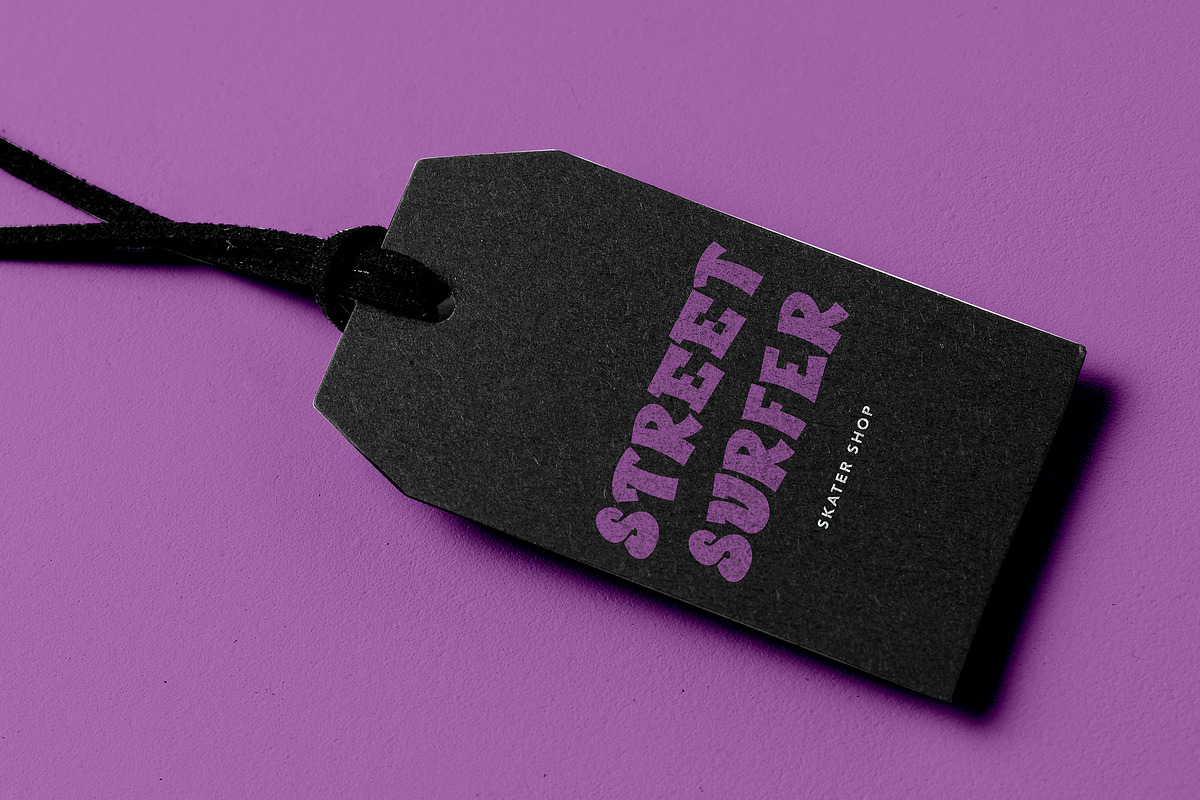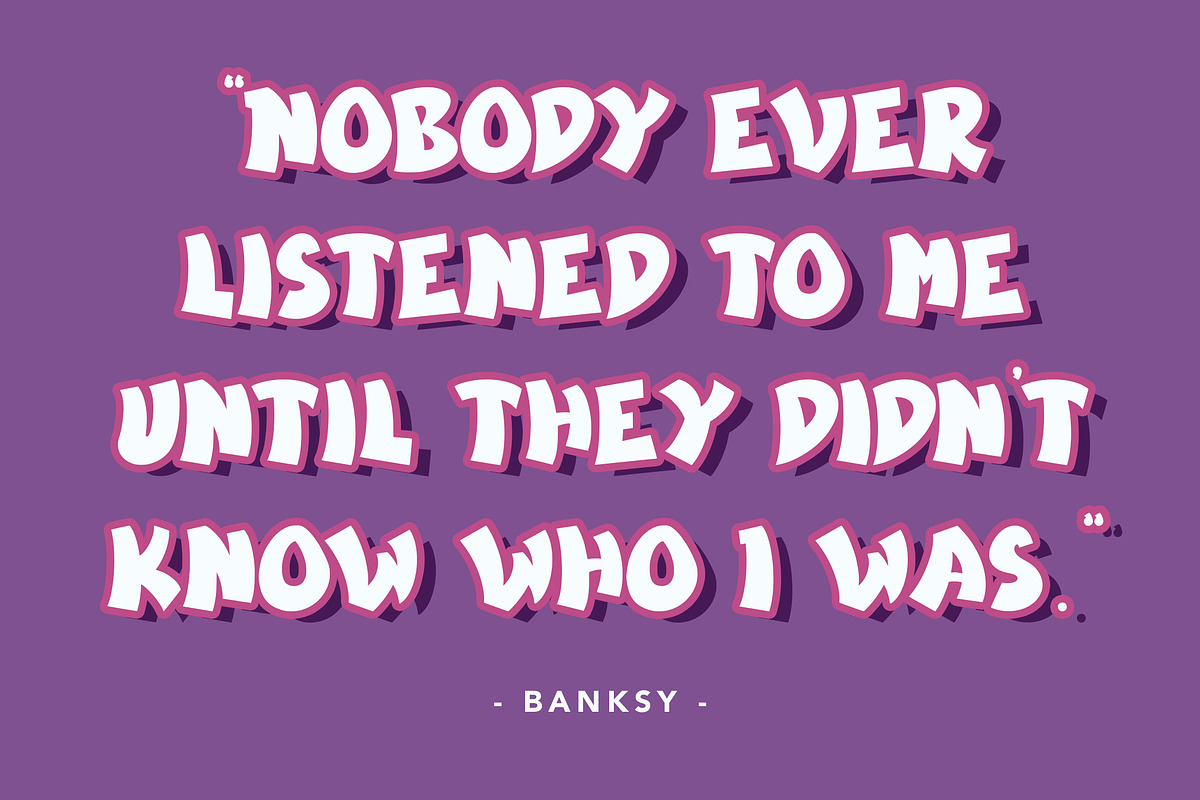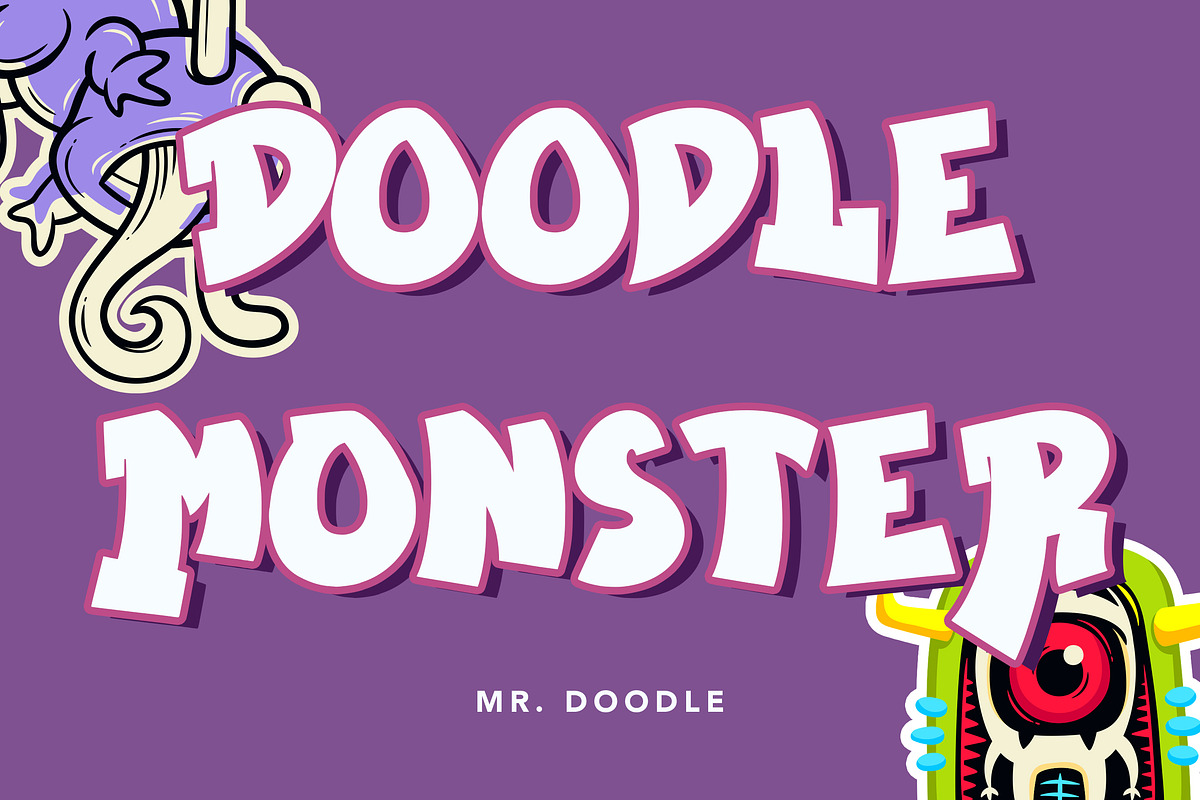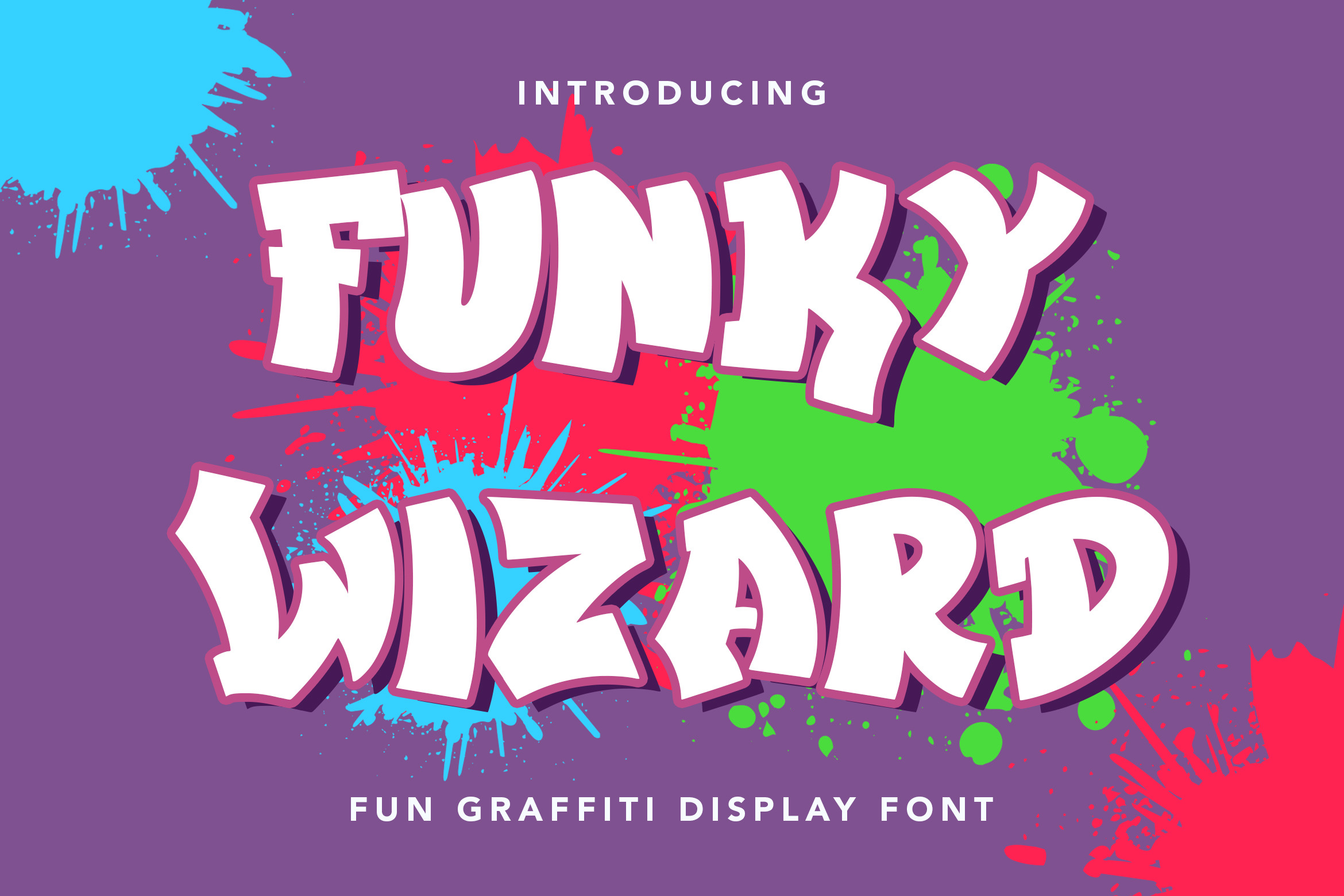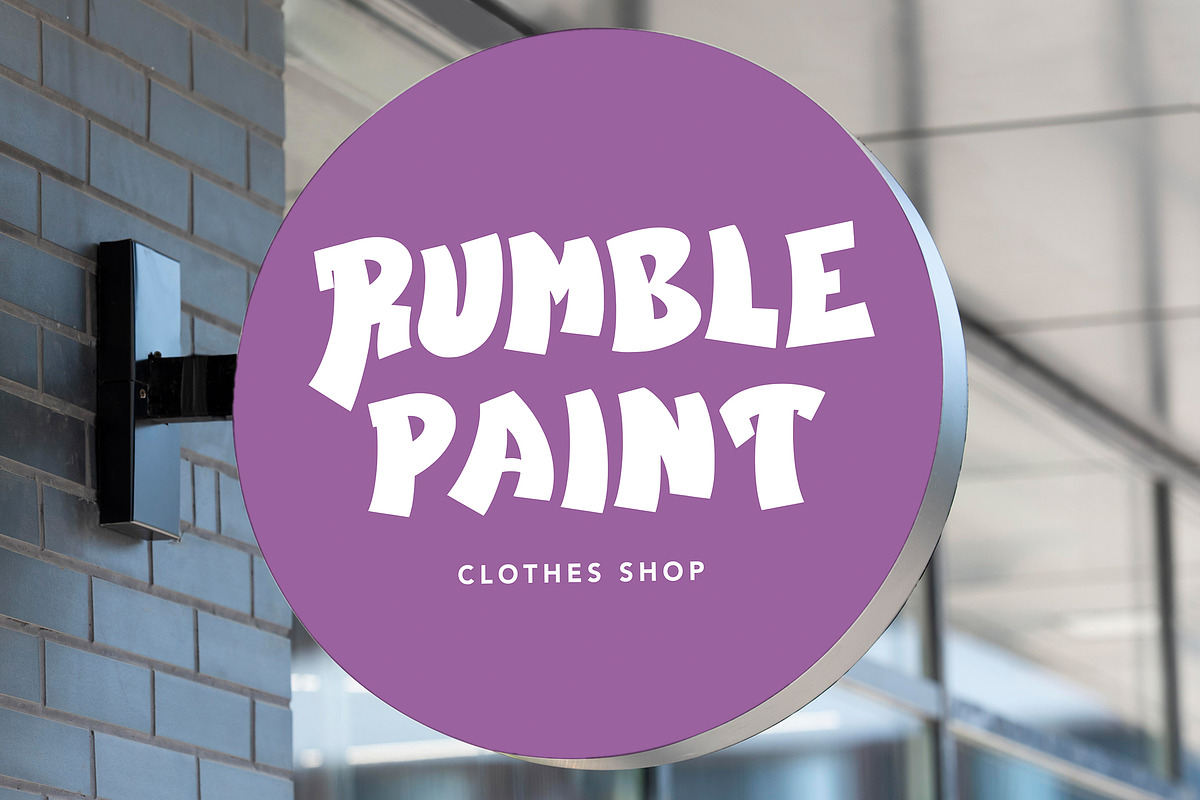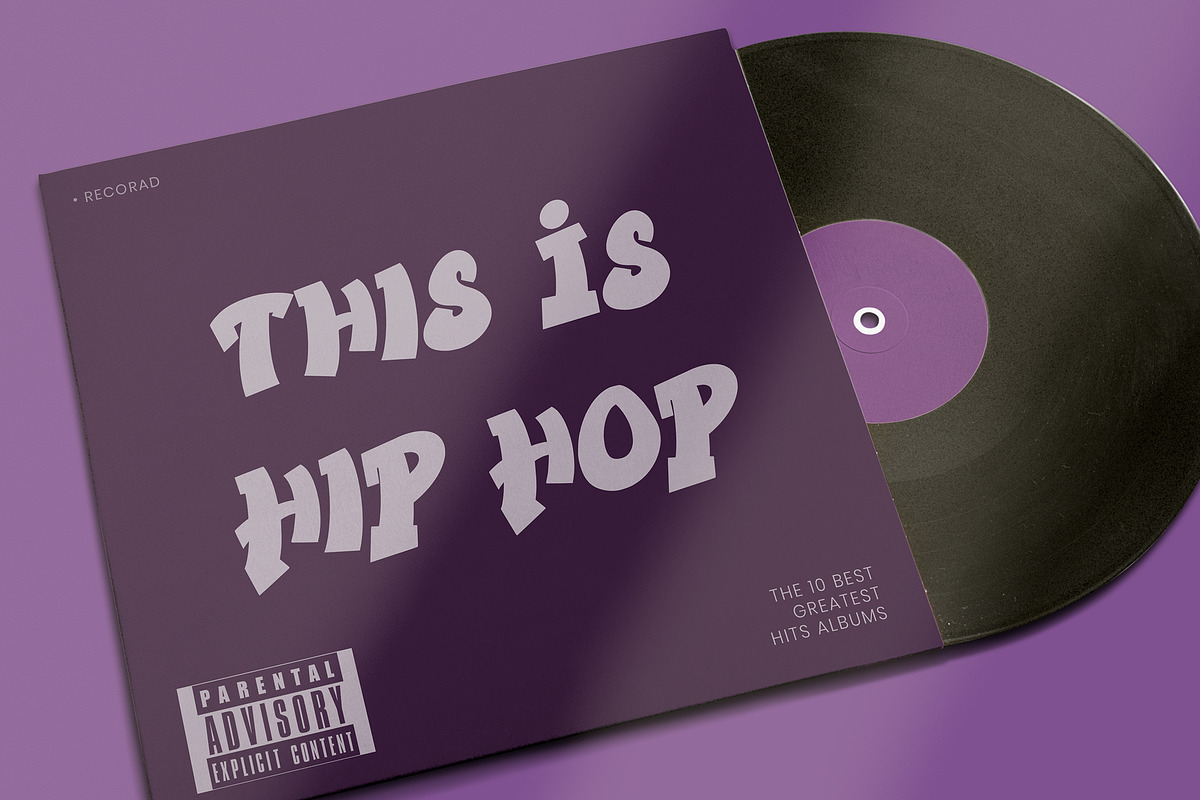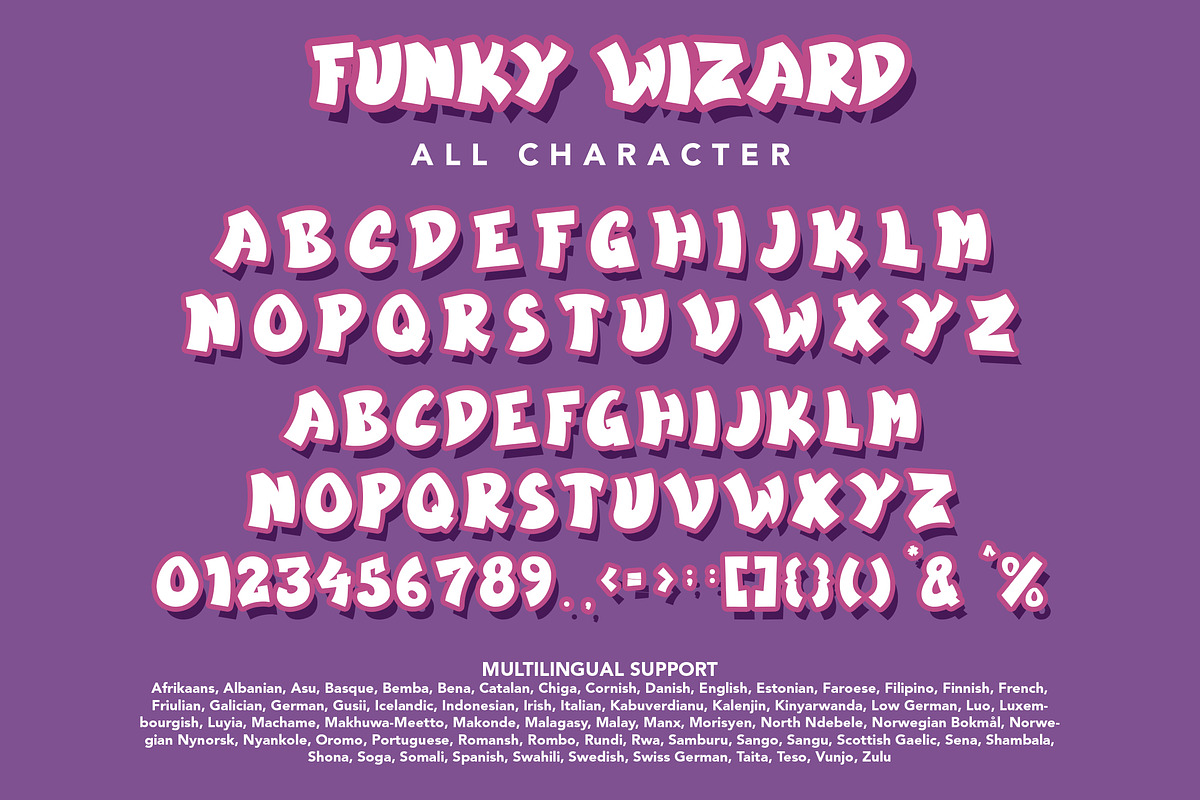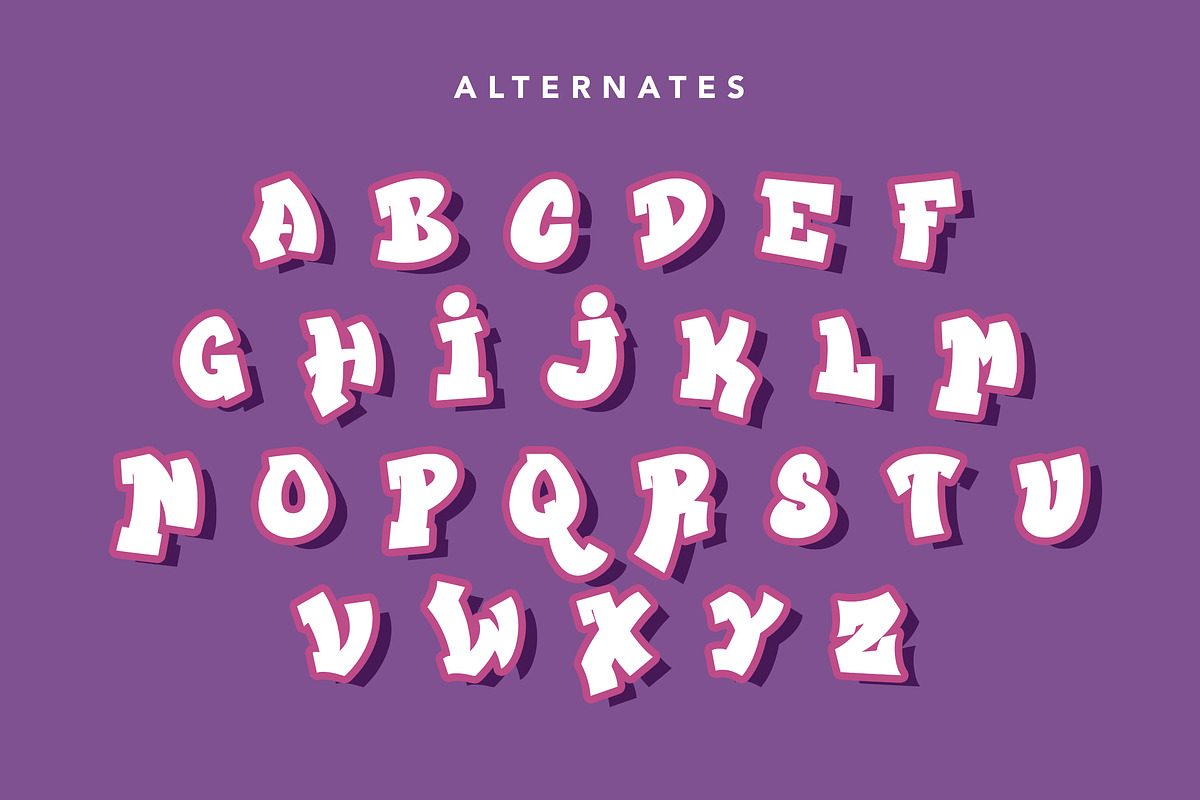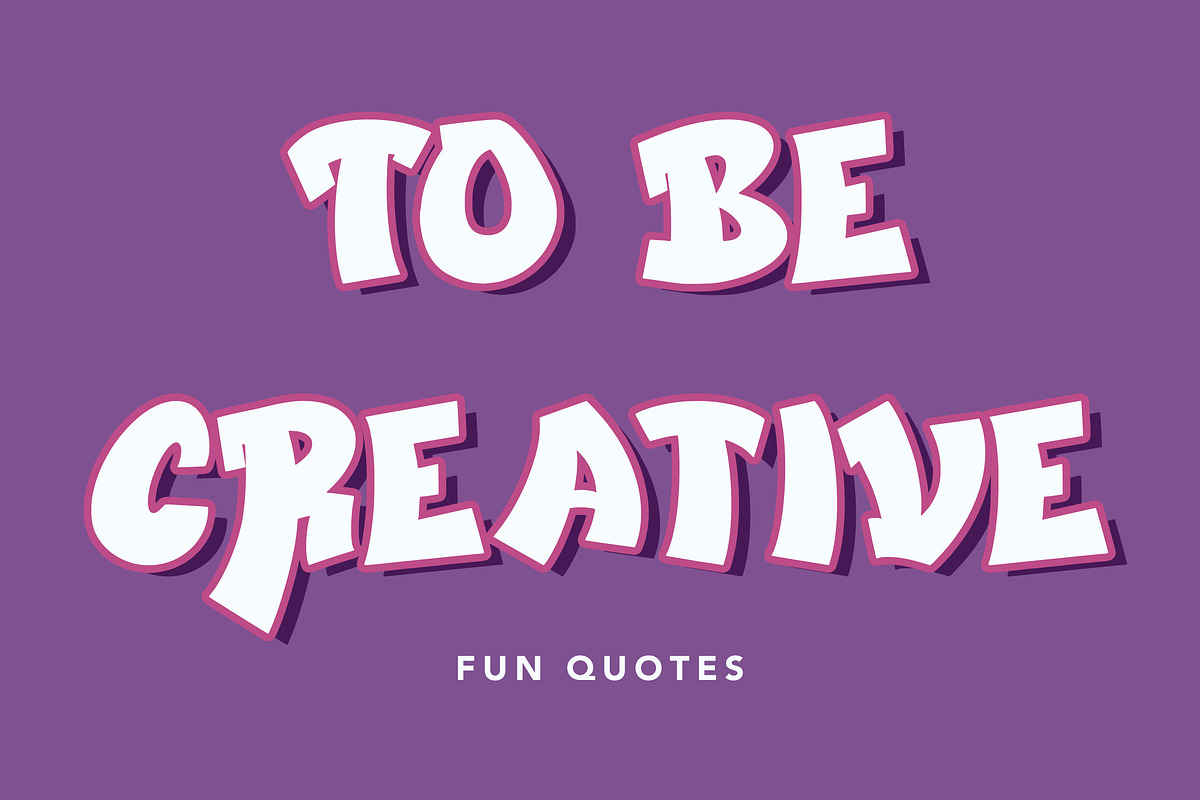
FunkyWizard - Graffiti Display Font
FunkyWizard - Fun Graffiti Display Font contains a lowercase, uppercase, symbol, and also supports multi-language. There’s a lot of ligature in this font. FunkyWizard - Fun Graffiti Display Font also comes with ligatures, stylistic alternates and many more. this font suitable for fashion, branding, catalog and other design that you want.